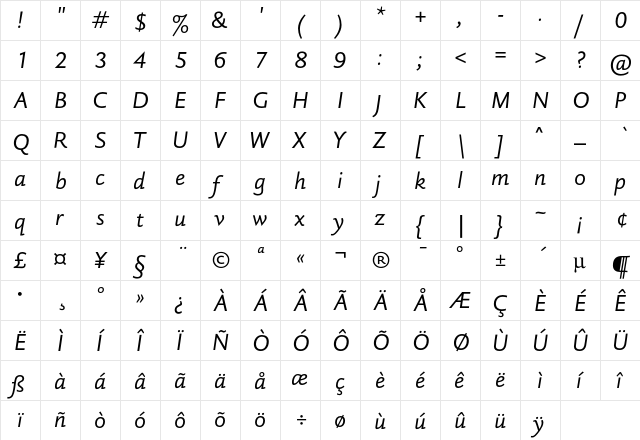
DTLHaarlemmerSansD Italic
Design Context for DTLHaarlemmerSansD Typeface
DTLHaarlemmerSansD offers clean, dependable letterforms without strong stylistic allegiance, making it a practical choice for designers who need flexibility. Its italic angle brings a sense of urgency and motion to the letterforms.
Pro Tip: Try DTLHaarlemmerSansD for annotation and caption copy alongside an upright companion — the contrast in angle creates a dynamic but ordered typographic system.